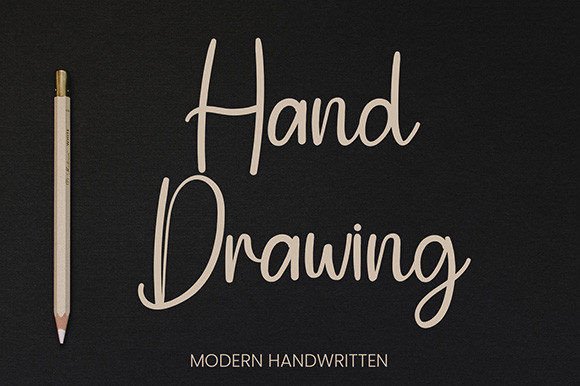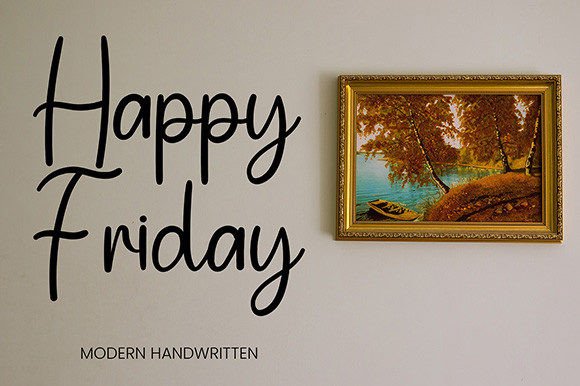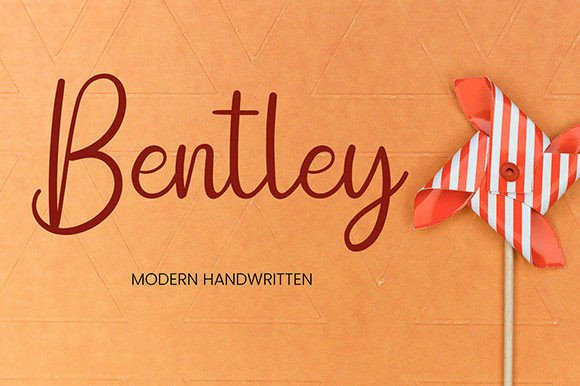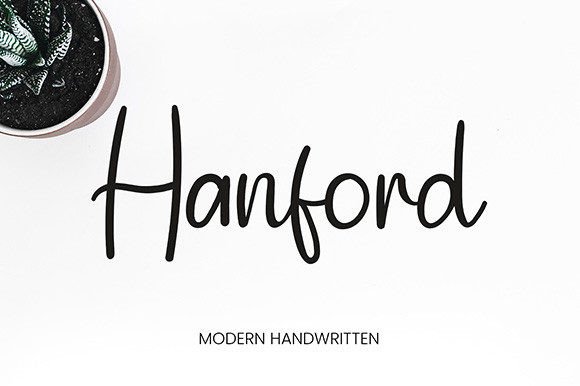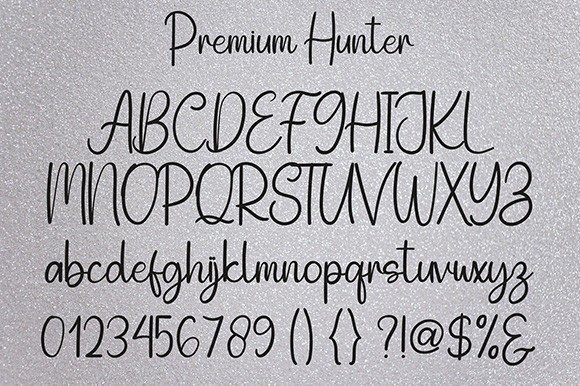
Introduction to Premium Hunter Font
Imagine you’re working on a creative project, and you’re in desperate need of the perfect handwritten font to bring your design to life. You browse through countless options, but none seem to capture the essence of your vision. That’s when you stumble upon the Premium Hunter Font – a game-changing design resource that will elevate your work to new heights.
As a designer, you understand the importance of having access to high-quality fonts that can make your projects stand out. The Premium Hunter Font is a masterpiece that combines classic calligraphic influences with a modern twist, making it an invaluable addition to any design toolkit. With its transparent background and sleek, elegant lines, this font is perfect for creating stunning visual effects that will leave your audience in awe.
Key Features of Premium Hunter Font
- High-quality, professional font designed for creative projects, ideal for designers and artists.
- Transparent background, allowing for seamless integration with any design element.
- Perfect for use in graphic design, digital art, and print media, making it a valuable design resource.
- High-resolution font (300 DPI), ensuring crisp and clear text output in both print and digital formats.
Honest Review: Premium Hunter Font
I recently had the chance to work with the Premium Hunter Font and I’m excited to share my honest review. As a designer, I’m always on the lookout for high-quality fonts to enhance my creative projects.
Here’s what I like about the Premium Hunter Font:
- ✨ High-quality design that’s perfect for titles and headings
- ✨ Easy to customize and use in various design applications
- ✨ Transparent background, allowing for seamless integration with other design elements
- ⚠️ Limited font weights and styles, which may not be suitable for all design projects
Overall, I’m impressed with the Premium Hunter Font‘s clean and modern design. While it may not be perfect, it’s a great resource for designers looking for a high-quality font at an affordable price. If you’re working on a creative project and need a font that’s easy to use and customize, the Premium Hunter Font is definitely worth considering.
Tips for Getting the Most Out of Premium Hunter Font
Use the font in combination with other design elements, such as images and graphics, to create a cohesive and visually appealing design. Experiment with different font sizes and styles to add depth and interest to your design.
The Premium Hunter Font is perfect for various design projects, including:
- Menu designs and restaurant branding
- Personal projects and creative endeavors
Alternatives to Premium Hunter Font
Montserrat is a high-quality, sans-serif font ideal for modern creative projects. It’s available for free download and can be used for both commercial and personal purposes. When to use: Use Montserrat for headings and titles in designs that require a clean, modern look. How it compares to Premium Hunter Font: Montserrat has a similar sans-serif feel but with a more geometric and urban aesthetic.
Great Vibes is a creative, script font perfect for design projects that require a touch of elegance. It’s a free download and can be used for both commercial and personal projects. When to use: Use Great Vibes for headings and titles in designs that require a sophisticated, handwritten look. How it compares to Premium Hunter Font: Great Vibes has a more flowing and organic feel compared to Premium Hunter Font’s bold and edgy style.
Open Sans is a high-quality, sans-serif font that’s ideal for a wide range of design projects. It’s available for free download and has a transparent background, making it perfect for designs that require a clean and simple look. When to use: Use Open Sans for body text in designs that require a clear and readable font. How it compares to Premium Hunter Font: Open Sans has a more neutral and versatile feel compared to Premium Hunter Font’s bold and eye-catching style.